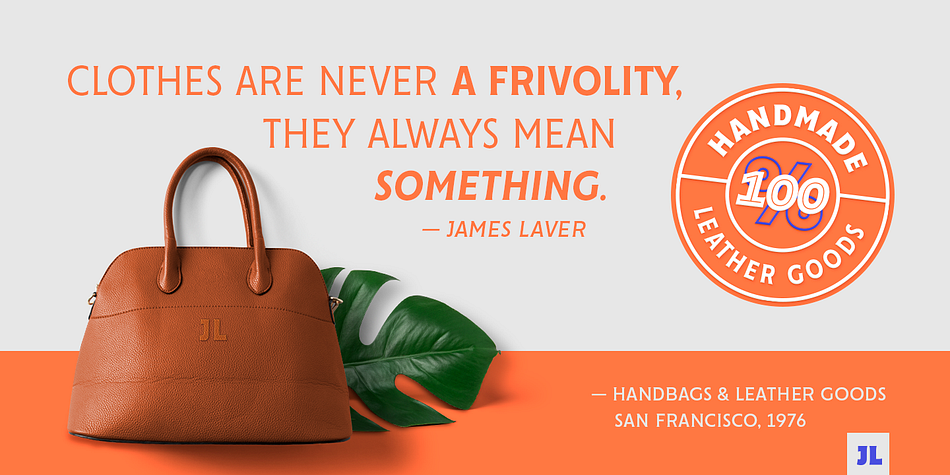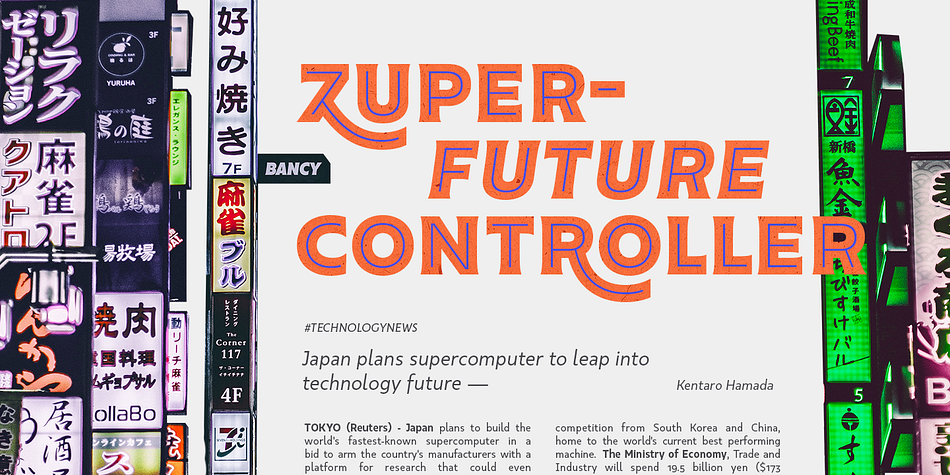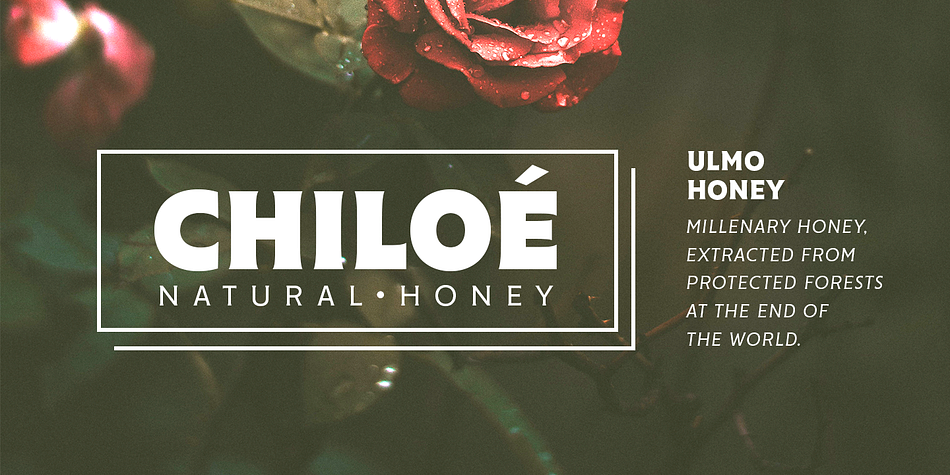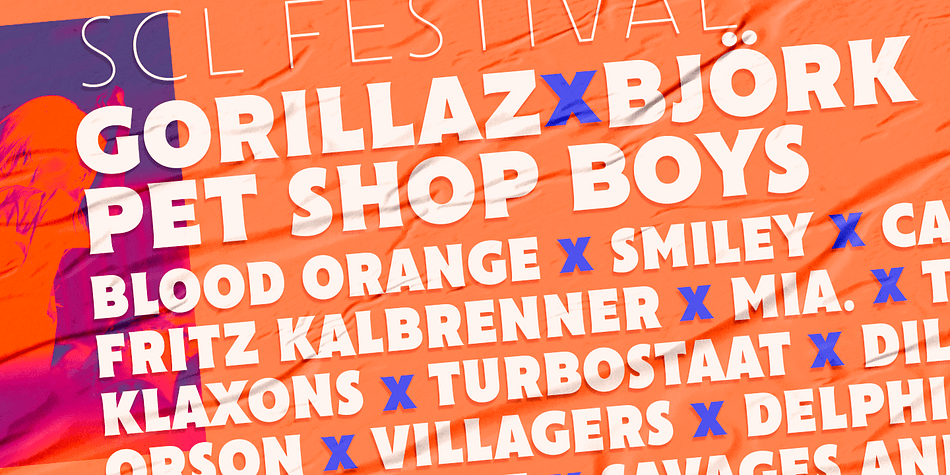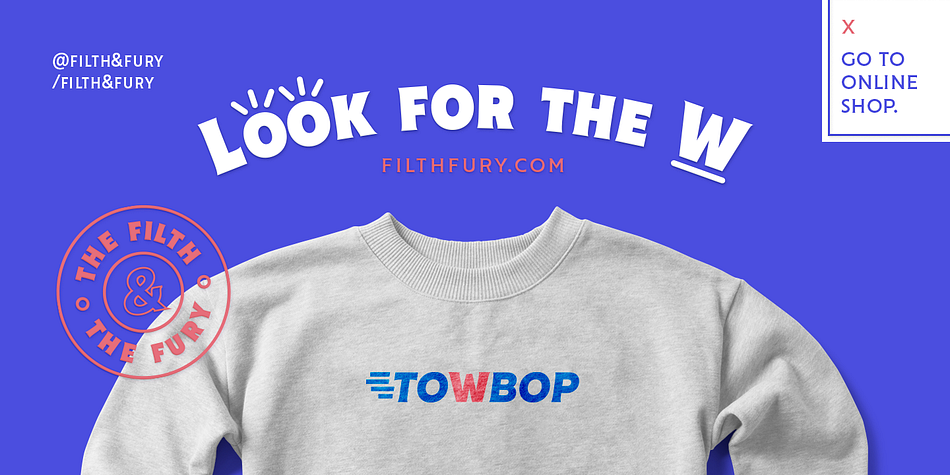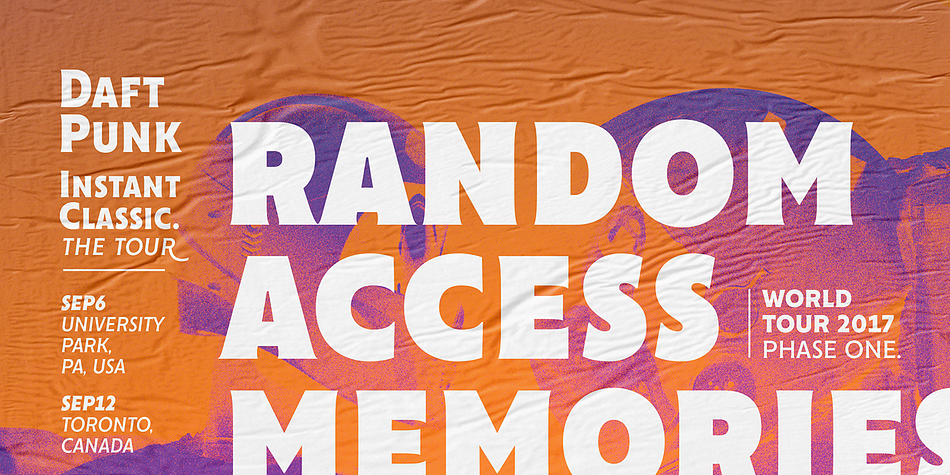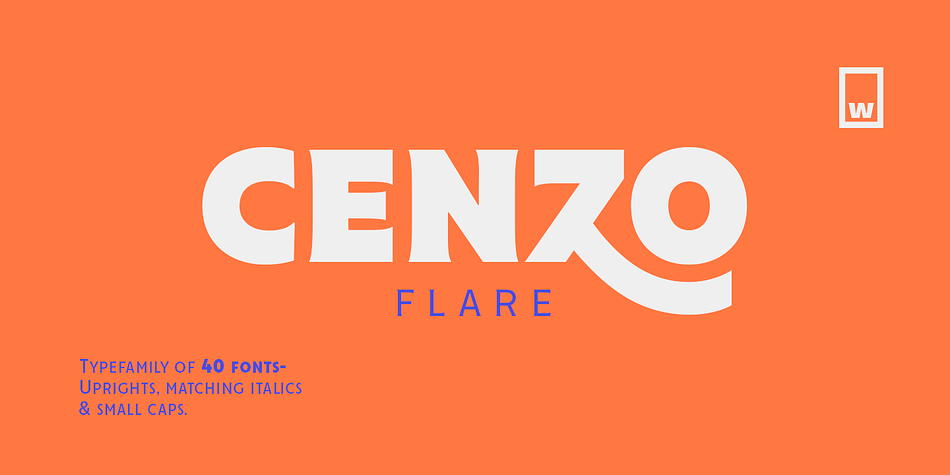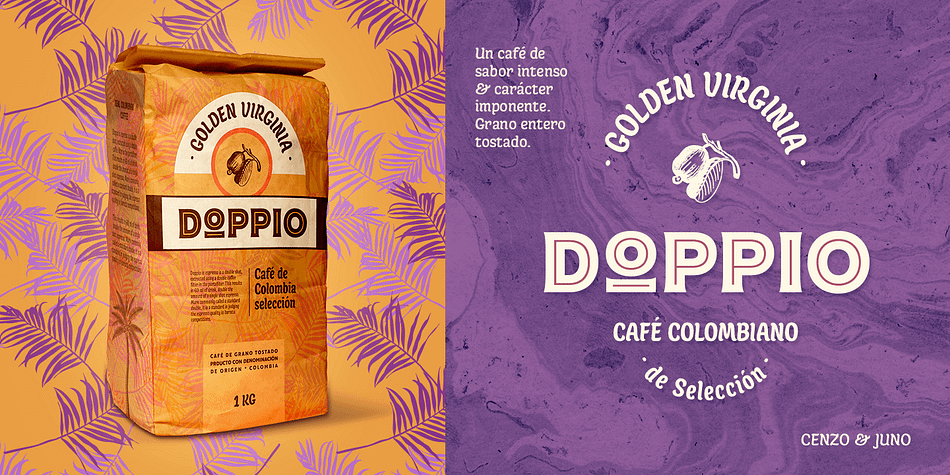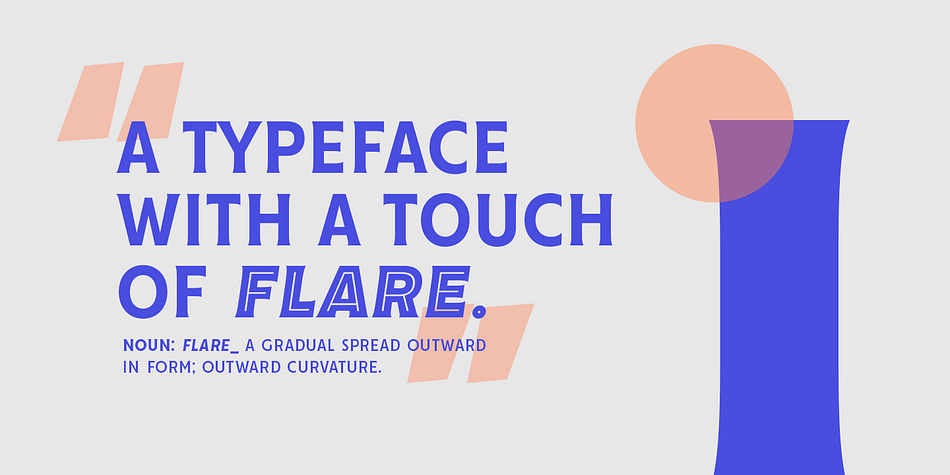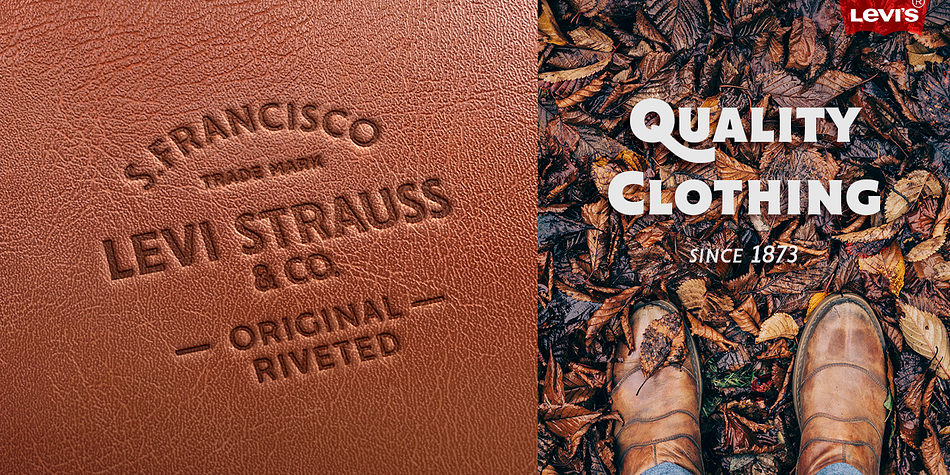
Designed by Bana Arasanz, Cenzo Flare is a sans serif and display sans font family. This typeface has forty styles and was published by W Foundry.
Cenzo Flare is a mixture of modern sans serif base with a touch of flare to it. The inspiration is drawn from all kinds of old Americana advertising, Italian posters, old century logos and signs. All that plus the strong trend on retro fonts now displayed on tv series and modern album covers results in Cenzo Flare.
A typeface designed for headlines, posters, advertising and corporate identity. With its appealing curvy smooth edges, it is sure to catch the eye. Also, enjoy multiple styles that work on their own or as overlapping layers with the InLine & Line variants to create colorful designs.
This 40 font family consists of four 5-weight subfamilies: Regular, InLine, Line & Condensed. All of them with matching italics. Designed with powerful opentype features, each weight includes alternate characters to play with, extended language support and many more. We’re proud to introduce: Cenzo Flare.